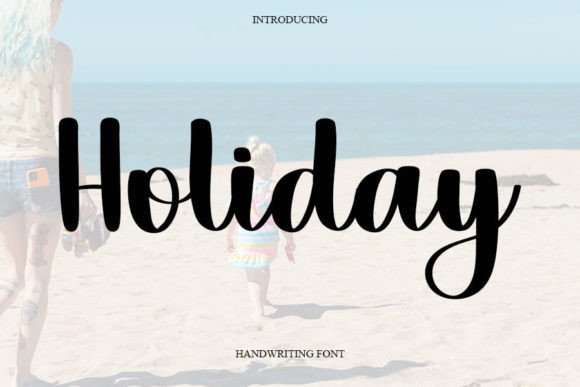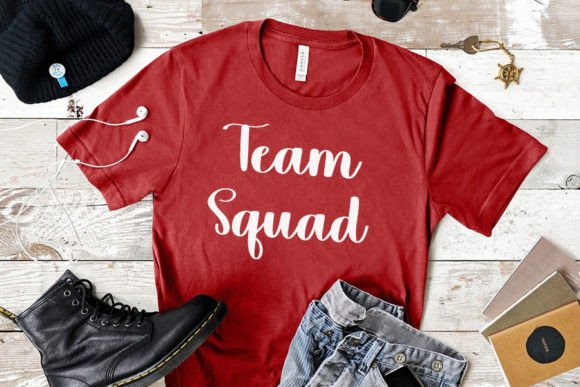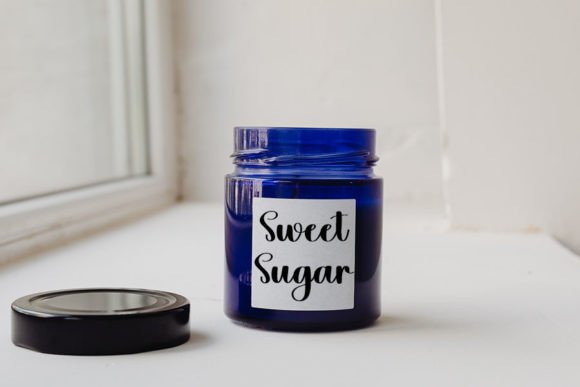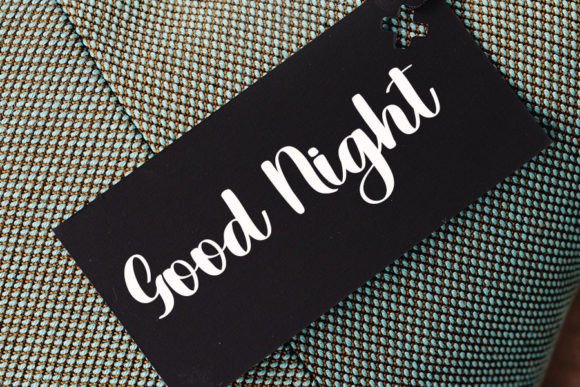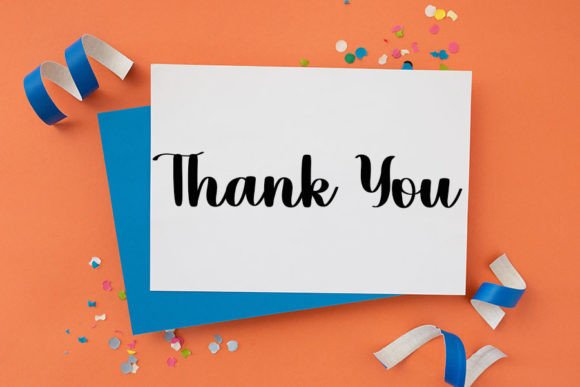
About Holiday Font
**Holiday** is a delightful and elegant handwritten font that adds a touch of sweetness and charm to your creative projects. With characters that dance gracefully along the baseline, this font exudes a sense of luxury and sophistication, making it a perfect choice for a wide range of design endeavors.
The font’s sweet and handwritten style is the essence of its appeal. It lends an air of refinement and classic beauty to your designs, making them stand out and exude an elegant quality. Whether you’re crafting luxurious invitations or designing high-end branding materials, **Holiday** seamlessly integrates into various design contexts.
**Holiday** is equally versatile in digital and print applications. Whether you’re using it to create a stylish digital design or incorporating it into the pages of printed materials, the font maintains its elegant and charming character. Its readability ensures your message is conveyed effectively, while its handwritten style adds an extra layer of visual appeal.
What sets **Holiday** apart is its ability to convey a sense of luxury and grace. It invites your audience to engage with your creative ideas in a way that resonates with its distinct and elegant quality. With **Holiday** as part of your creative toolkit, you have the means to infuse a sense of sophistication and creativity into your designs, making them memorable and captivating.
**Holiday** offers a wide array of customization options, allowing you to fine-tune your text to match your creative vision precisely. This flexibility empowers you to craft designs that align with your artistic preferences with precision.
In conclusion, **Holiday** is more than just a font; it’s a design asset that elevates your creative projects with sweetness, elegance, and a touch of luxury. Embrace its handwritten style, and let it inspire you to craft designs that exude refinement and creativity. With **Holiday** at your disposal, your creative possibilities are expansive, enabling you to create captivating and unforgettable works of art through its sweet and beautifully crafted typography.